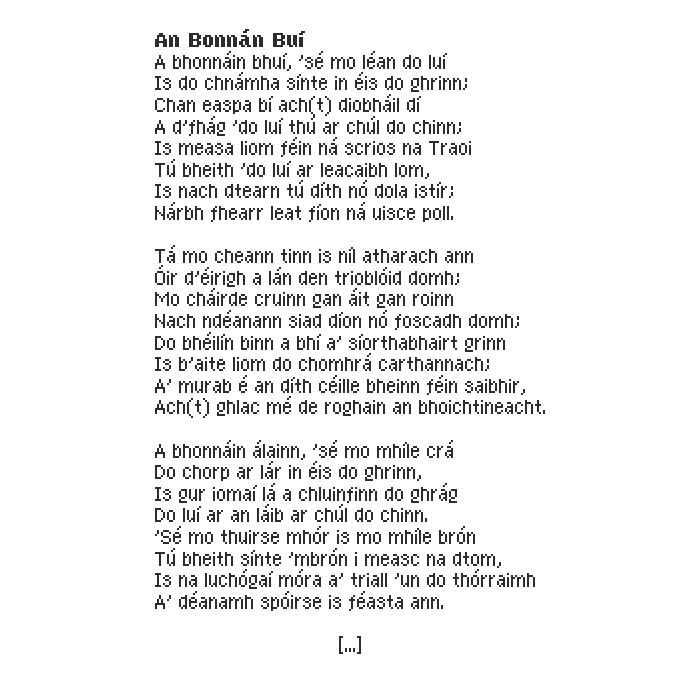
• Same deal as Newroku, but a complementing thinner version meant for body copy. Decided to prioritise this guy over the bold one because it’s more versatile. No kerning yet, but Cyrillic and Greek are nearly finished. A few glyphs are still bold, but I’m working on it.
From Newroku’s description: The name “Newroku” is a play on Rusyn “нювроку” (/nʲu'roku/), an exclamation/adverb with one of the meanings close to “fairly, decently, strongly”. Since this is a fairly bulky font, one might call it “нювроку читавый” (/nʲu'roku 't͡ʃɪtavɤj/) in Rusyn.